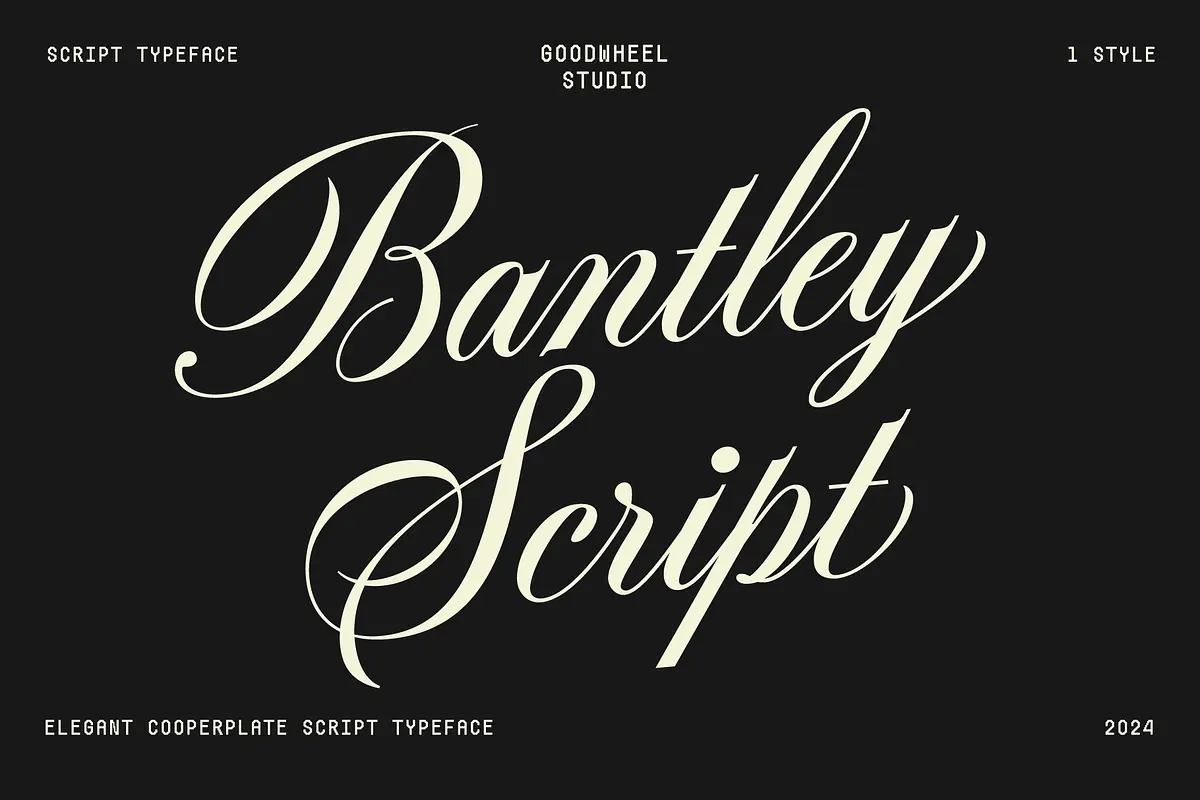
Bantley Script Font Free Download is a stylish and elegant handwritten script designed to add a classic and sophisticated touch to your design projects. Inspired by vintage calligraphy and modern elegance, Bantley is perfect for wedding invitations, logos, product labels, stationery, greeting cards, and high-end branding.
With its smooth, flowing curves and charming personality, Bantley Script captures the essence of handcrafted beauty. It evokes feelings of romance and tradition while maintaining a clean, contemporary look that suits both timeless and trendy aesthetics.
Bantley Script Font Free Download includes a full character set, including uppercase and lowercase letters, punctuation, and swashes for that extra flair. It’s fully compatible with design software like Adobe Illustrator, Photoshop, InDesign, and more, making it easy to start experimenting with beautiful layouts.
Whether you’re working on a personal passion project or laying the foundation for a luxury brand, Bantley is a versatile font that makes a lasting impression. Download it for free to test its elegance — and don’t forget to purchase the license for any commercial use. Let your designs speak with the graceful voice of Bantley.